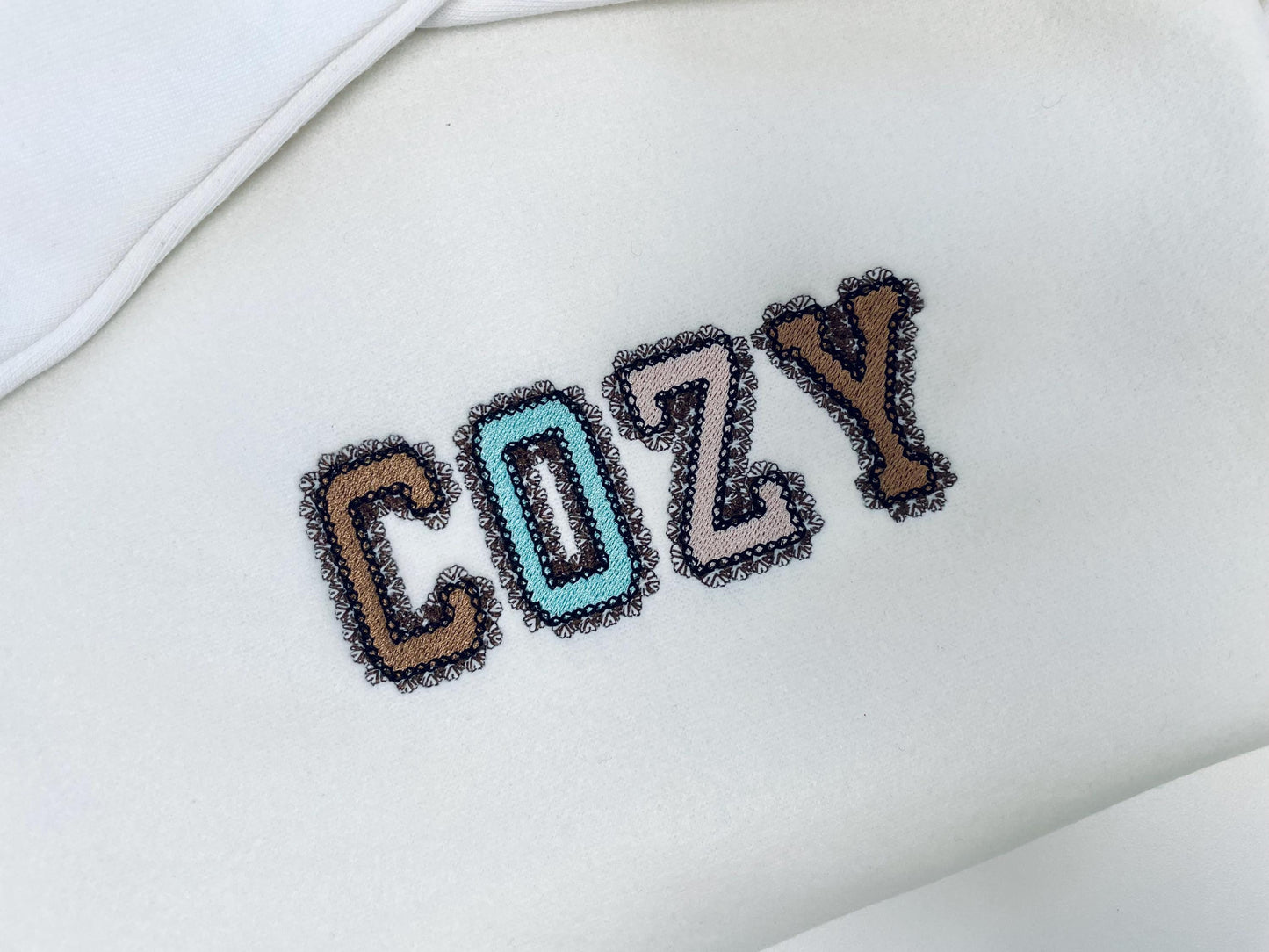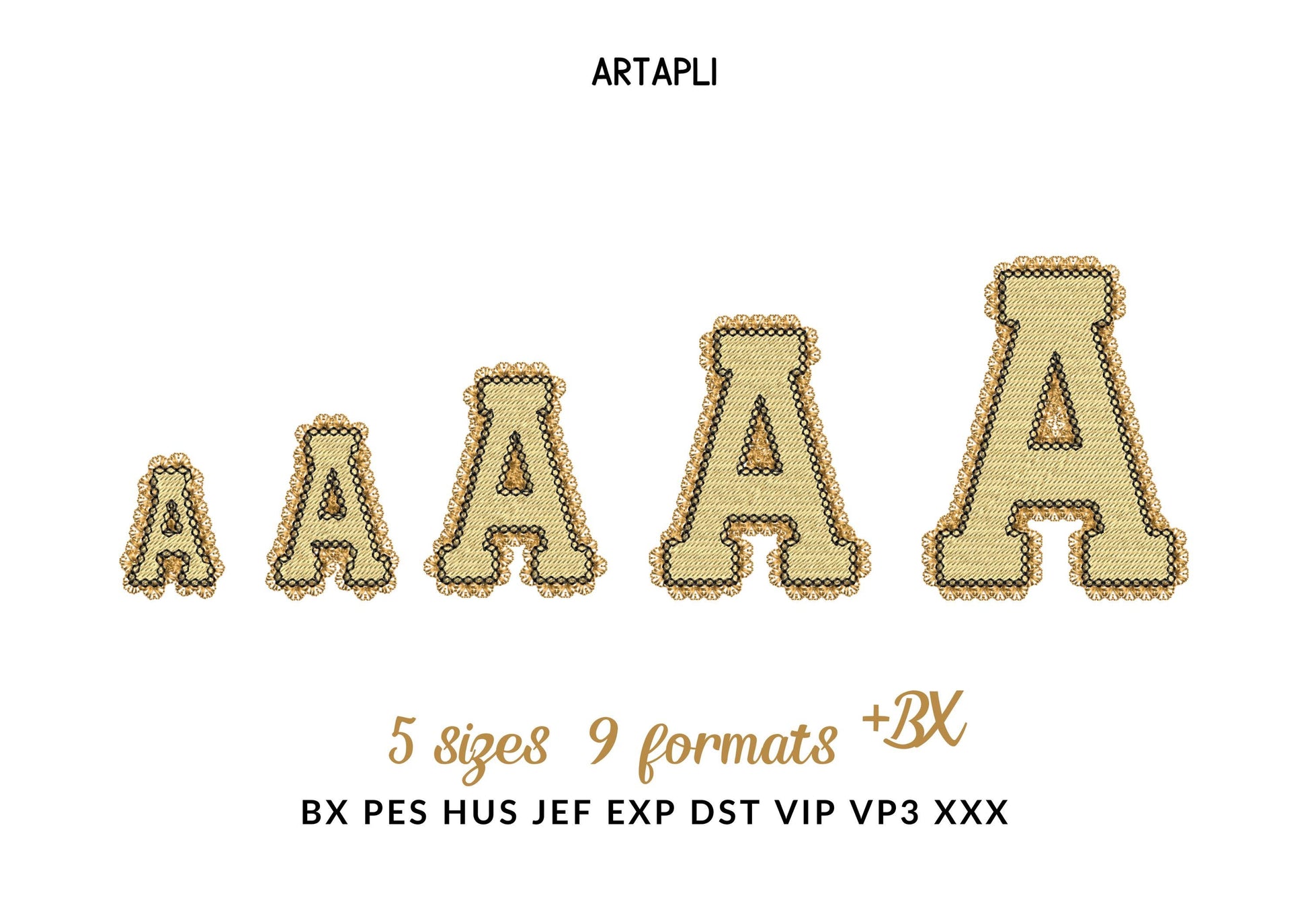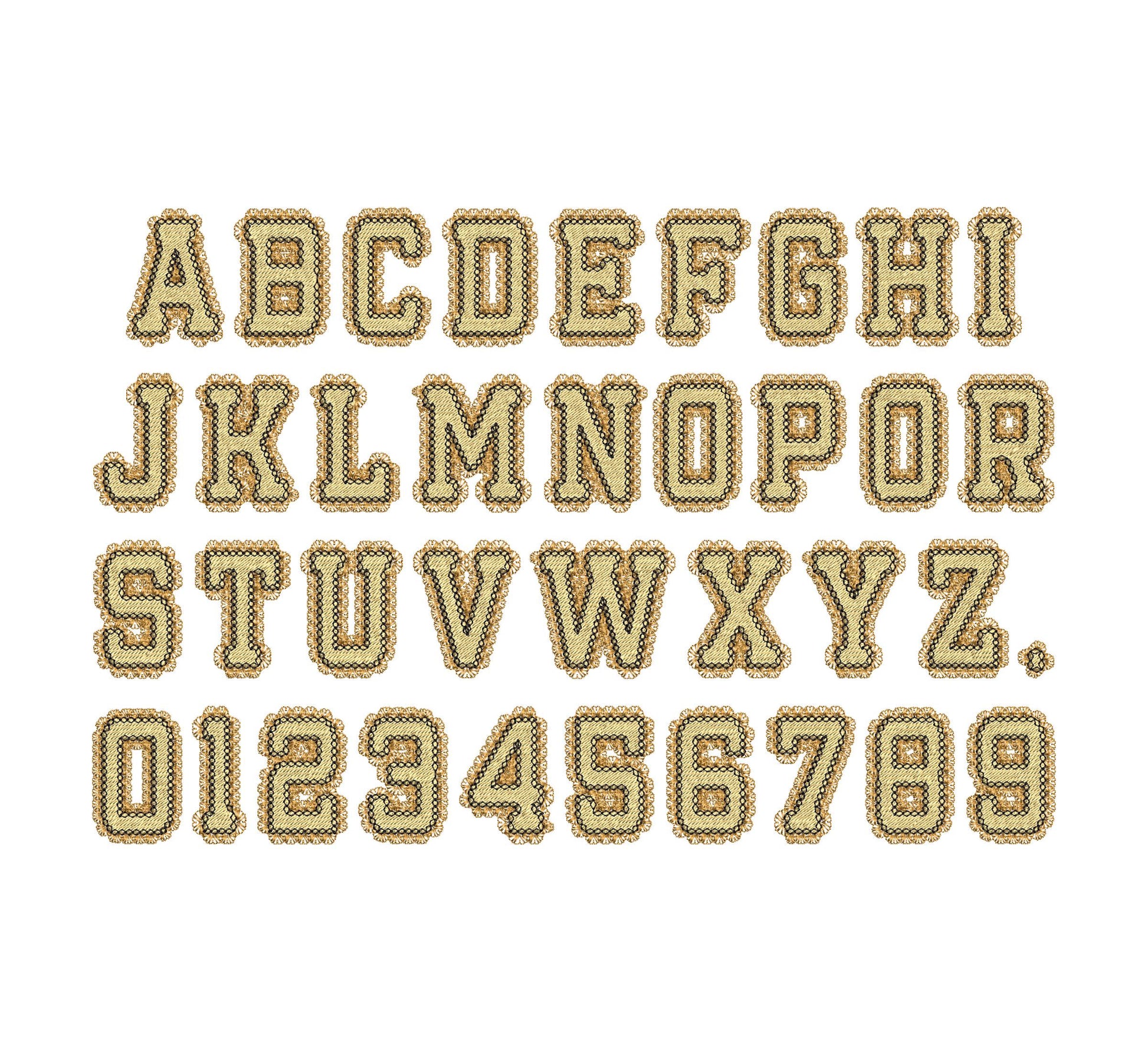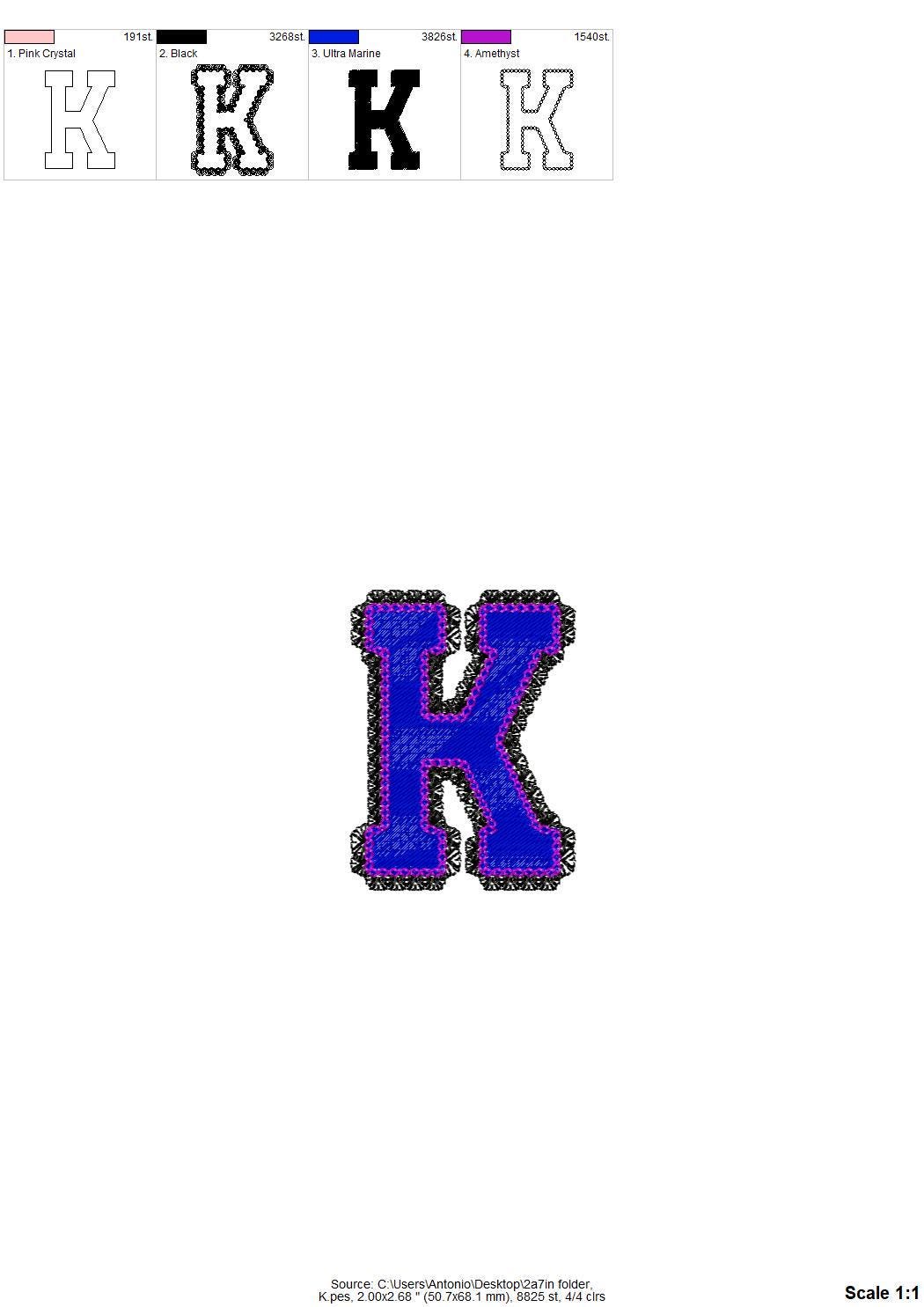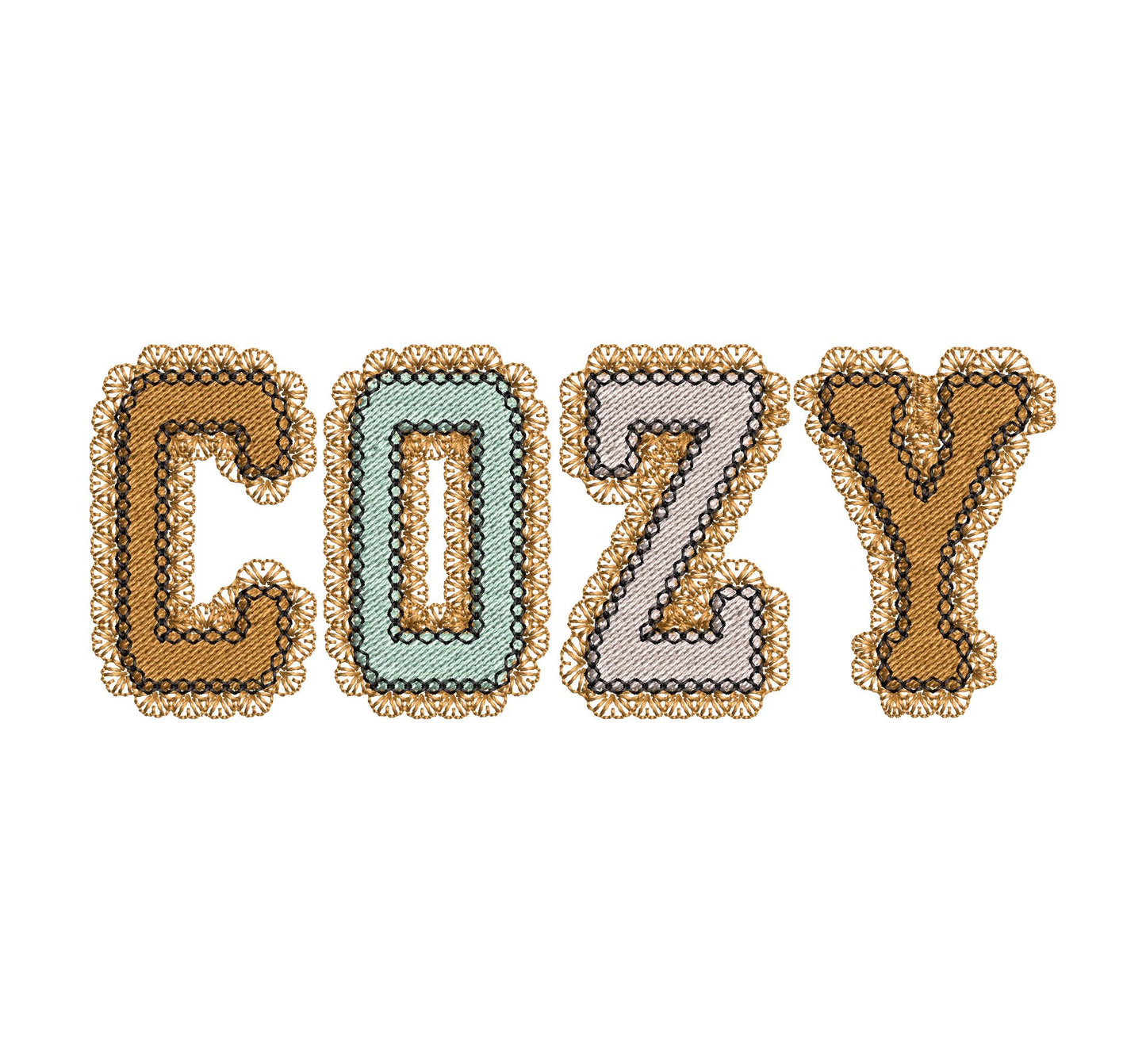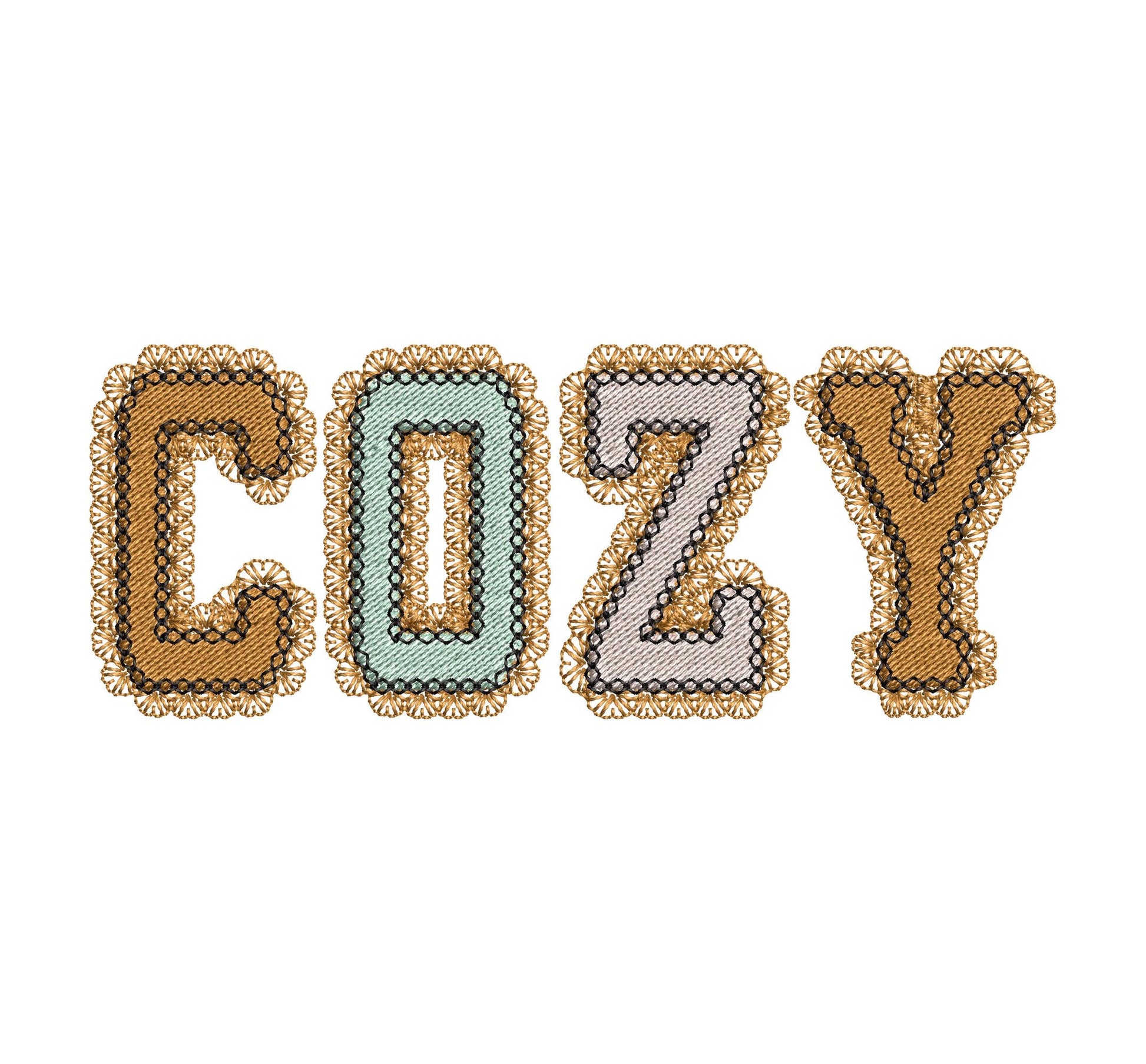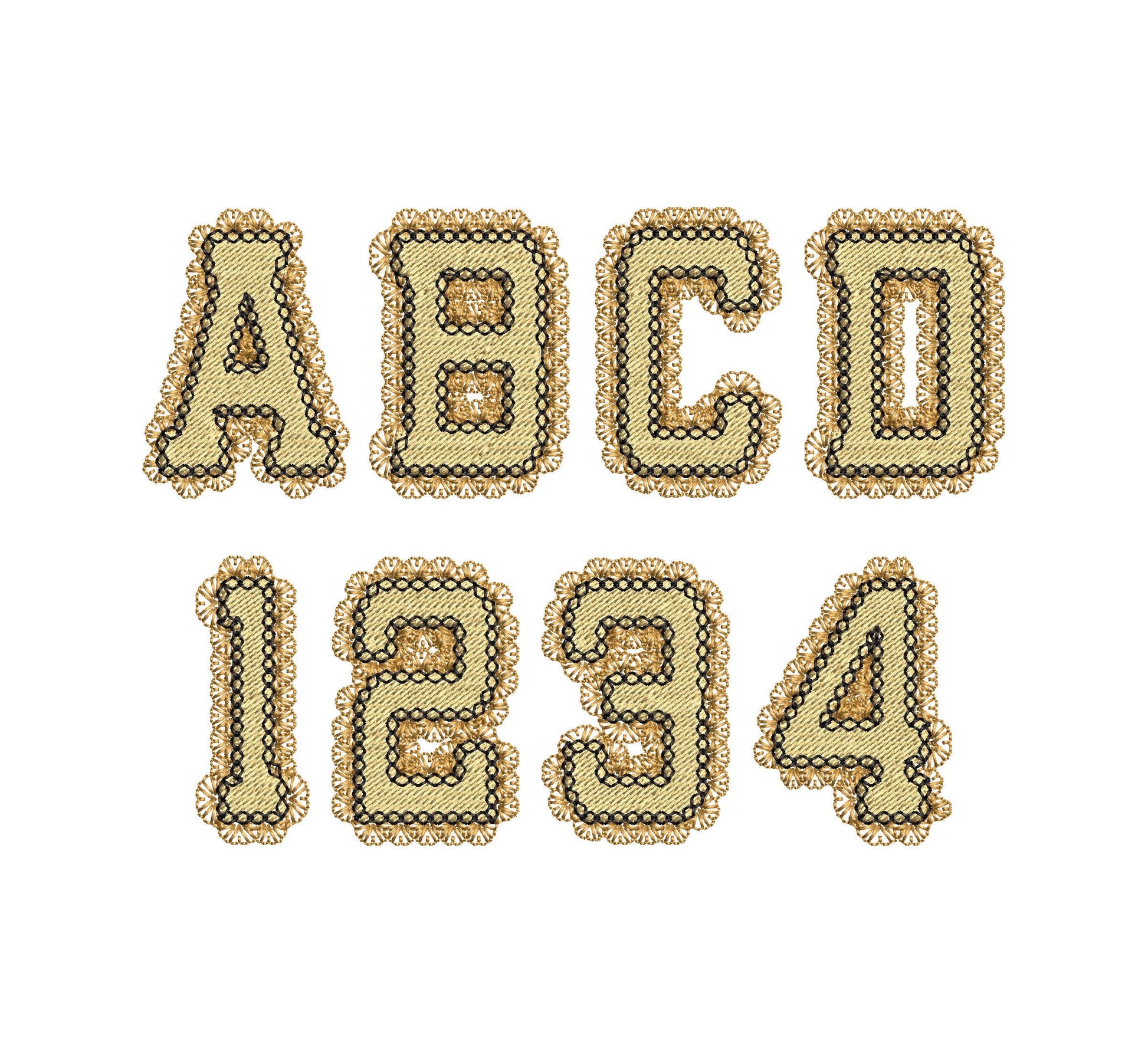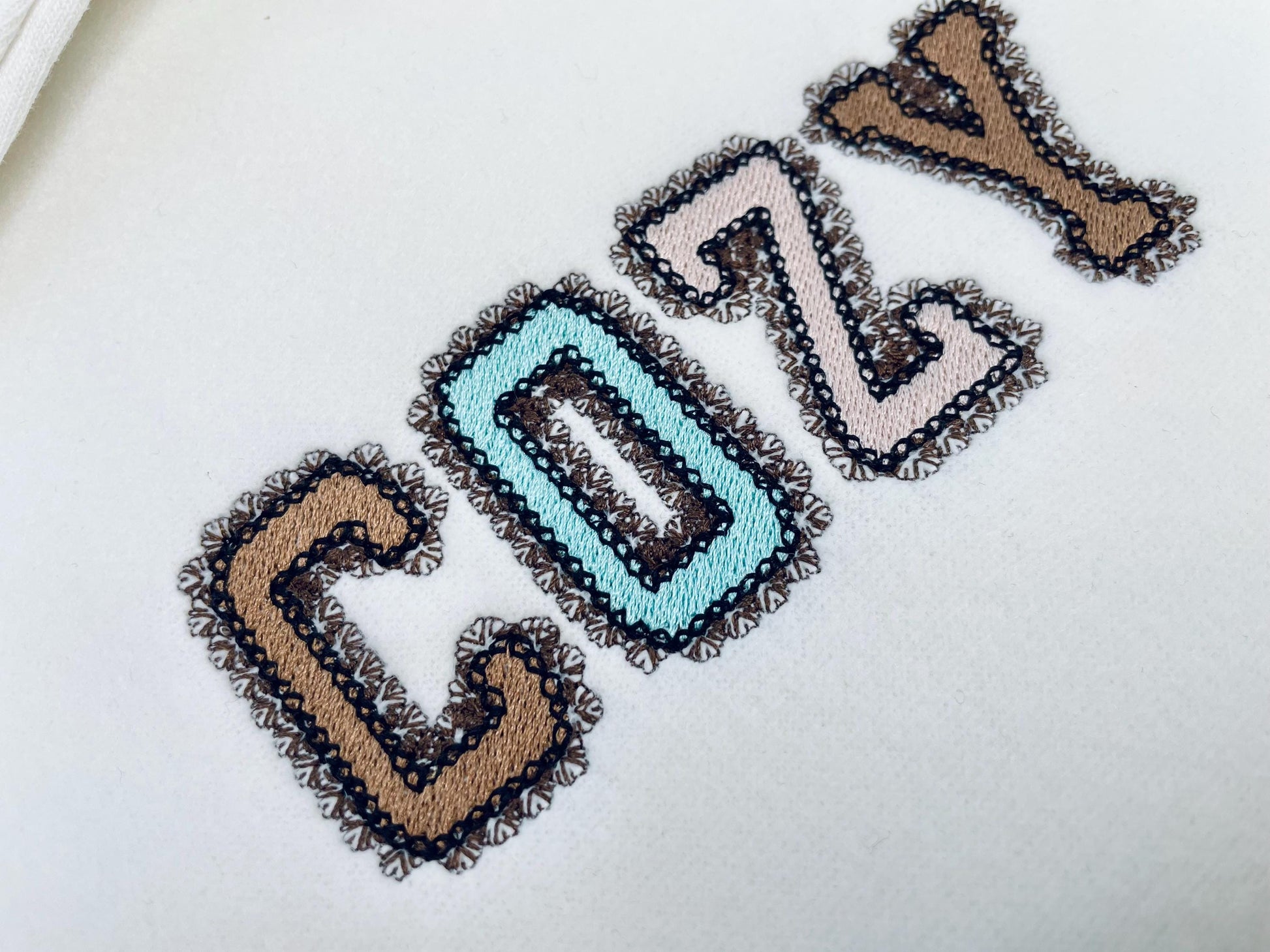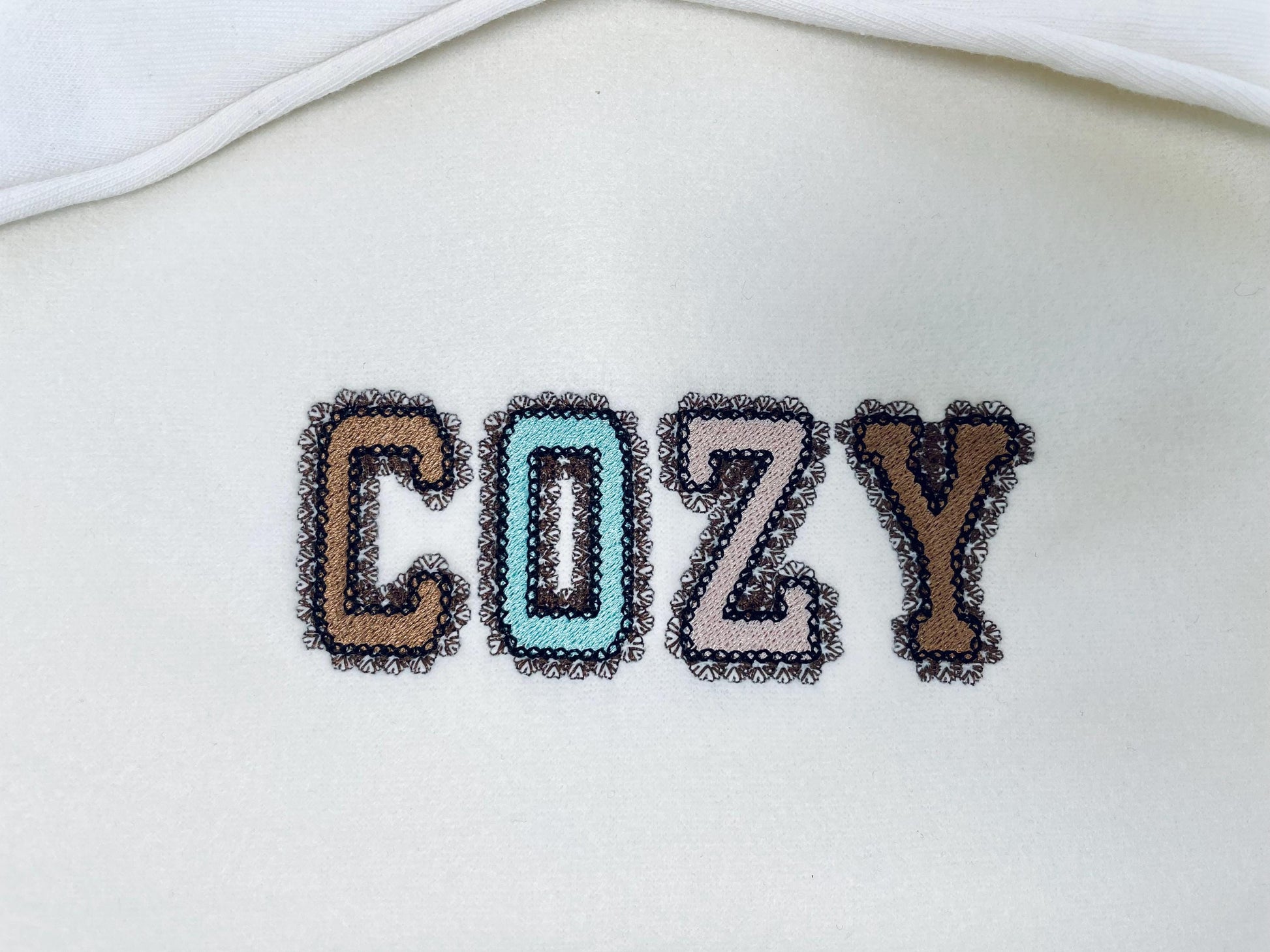
Or click to open the linkCozy, a girly fill stitch font with a lace edge and an outline. Pretty for names, monograms, baby gifts and small labels.
Capital letters A to Z, numbers 0 to 9 and a period, in five sizes: 1.4, 1.7, 2.2, 2.7 and 3.2 inches. The lace edge is part of the stitching.